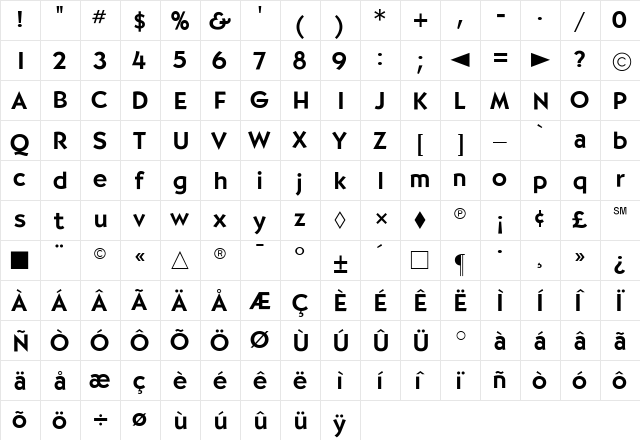
CgBernhardtMd Medium
Design Context for CgBernhardtMd Typeface
CgBernhardtMd takes a measured approach to typography — its balanced proportions and neutral character make it a reliable workhorse for both digital and print work.